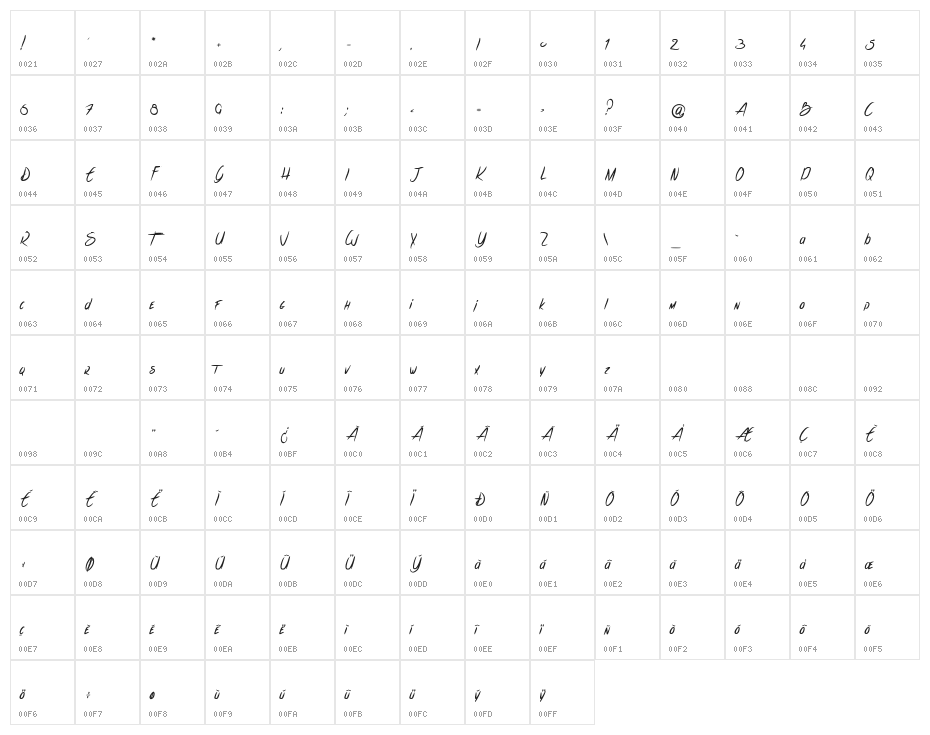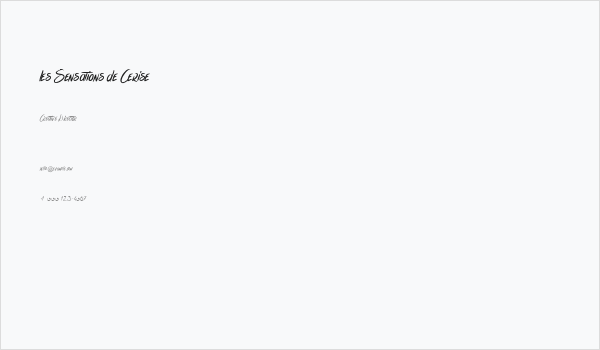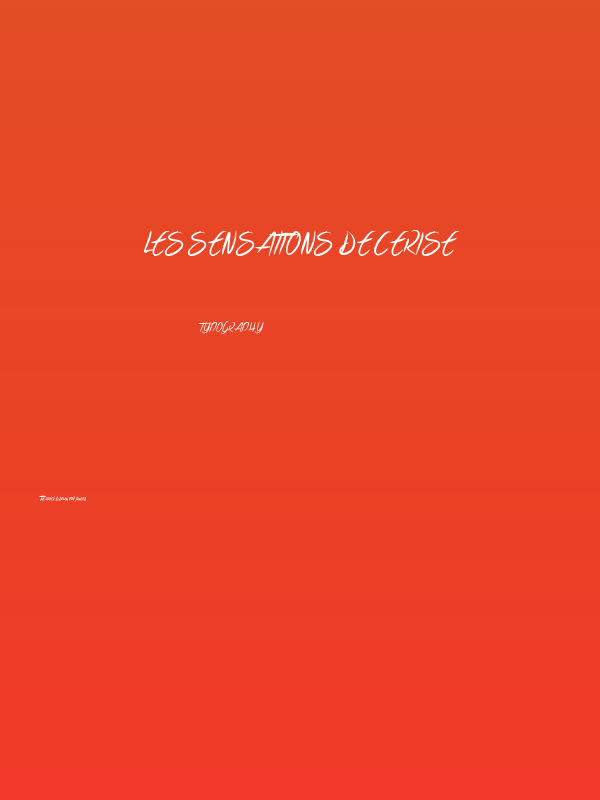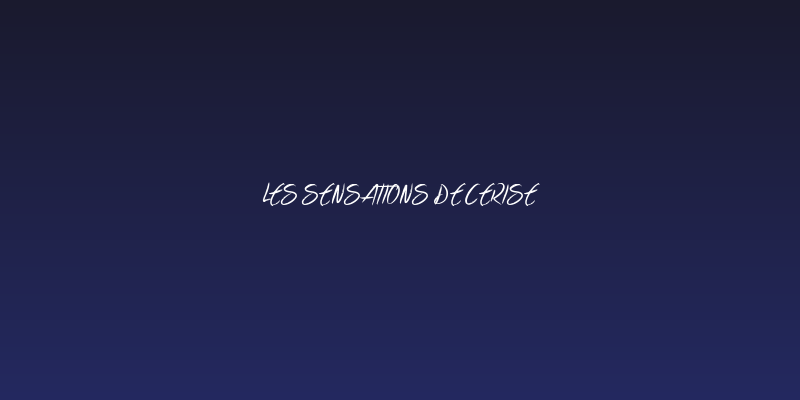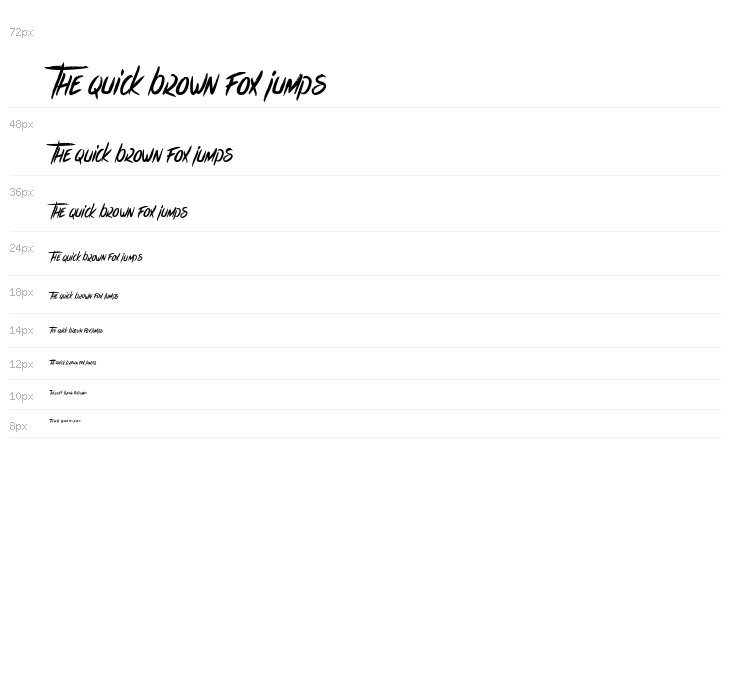
les Sensations de Cerise Font
les Sensations de Cerise Description
This font exudes a dynamic and energetic style, characterized by its fluid, handwritten appearance. The letters are slightly slanted, giving a sense of motion and spontaneity. The strokes vary in thickness, adding a lively contrast that enhances its expressive nature. The uppercase and lowercase letters maintain a consistent style, with some playful variations in character shapes. The numbers and special characters follow the same energetic theme, making the font suitable for creative and informal applications.
| Proposed Projects | Ideal for creative projects such as event posters, artistic branding, and social media graphics. It can also be used for personal invitations or any design requiring a touch of spontaneity and flair. |